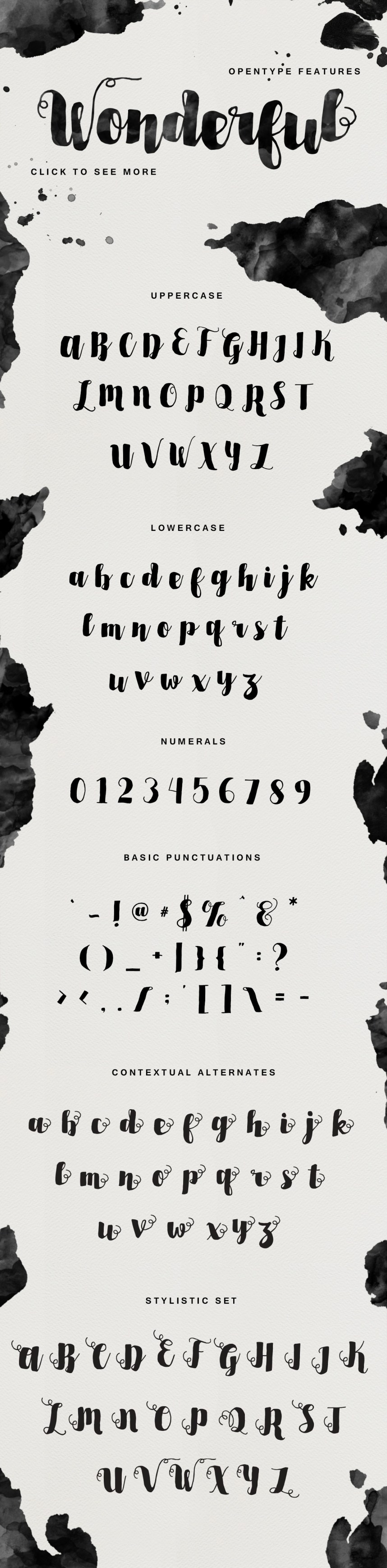
Sortdecai Brush Script
Introducing our new Sortdecai Brush Script, Sortdecai Brush Script is another hand lettered modern brush script typefaces, which is combining the style of classic calligraphy with an modern style. Sortdecai Brush Script is a part of Sortdecai Family.